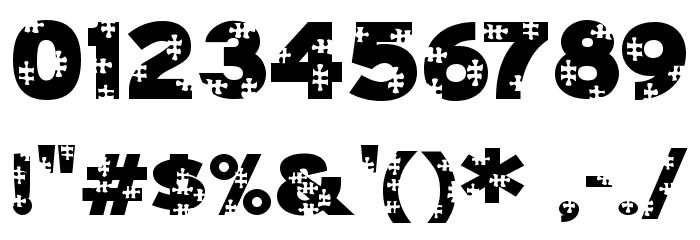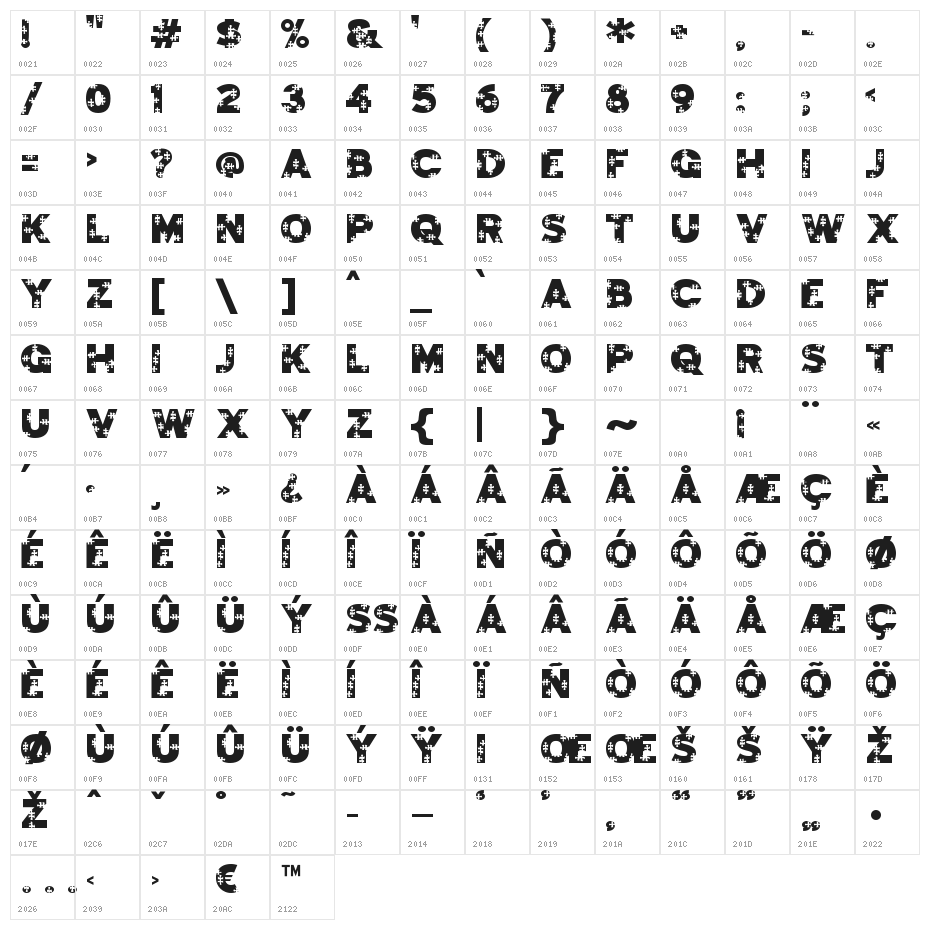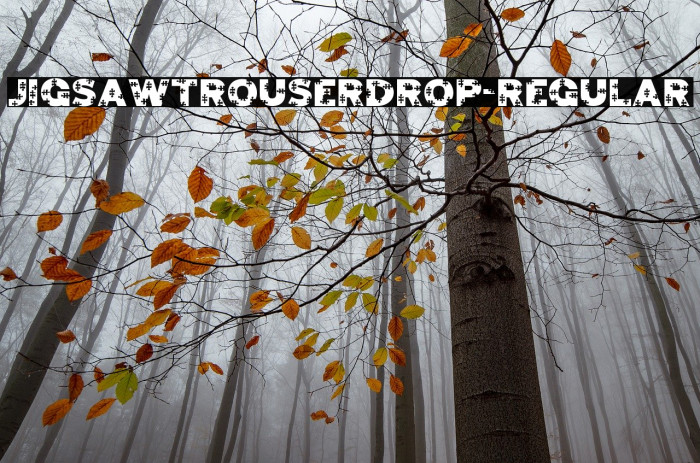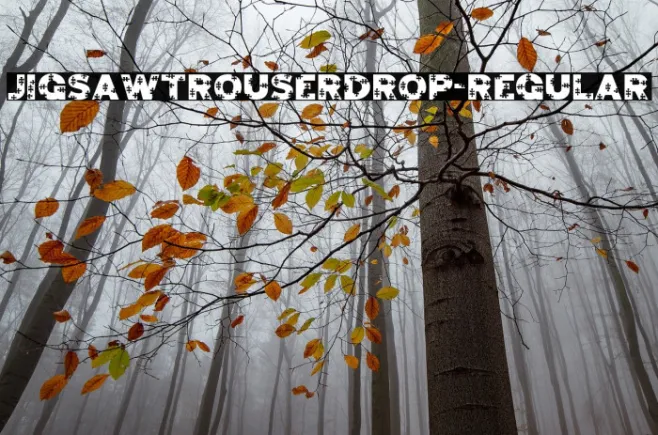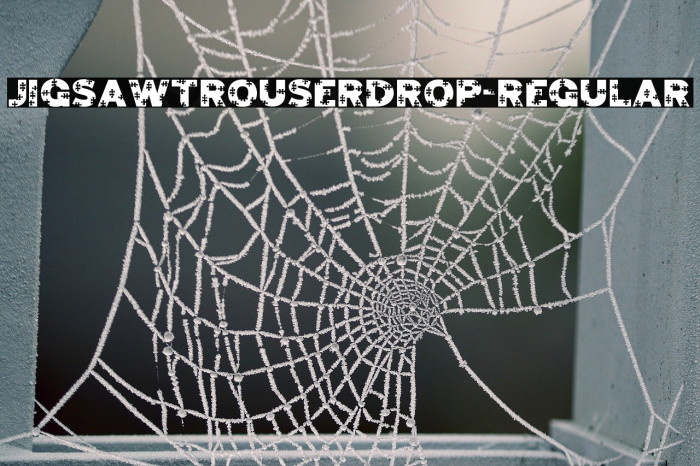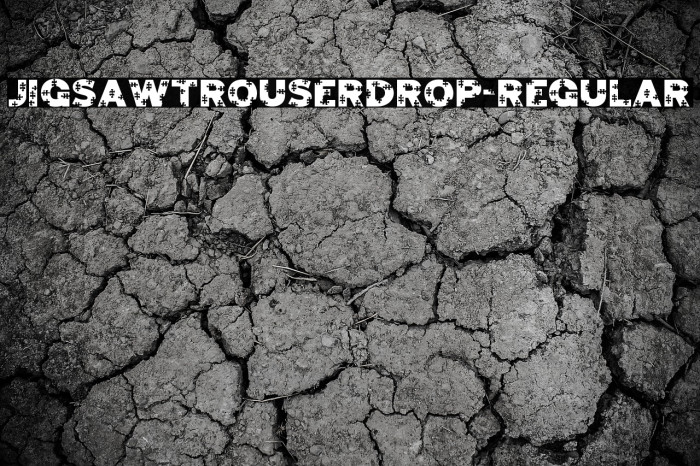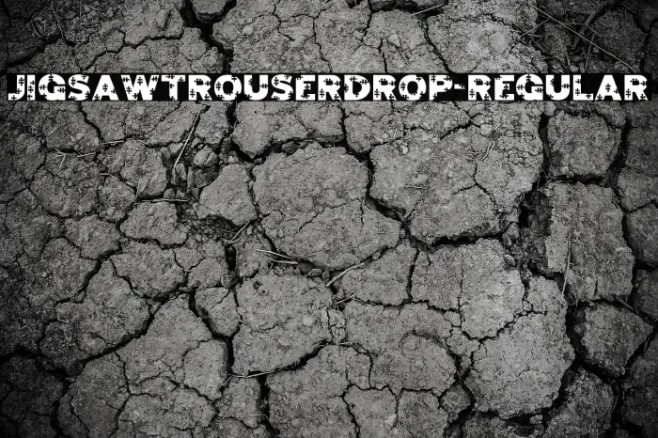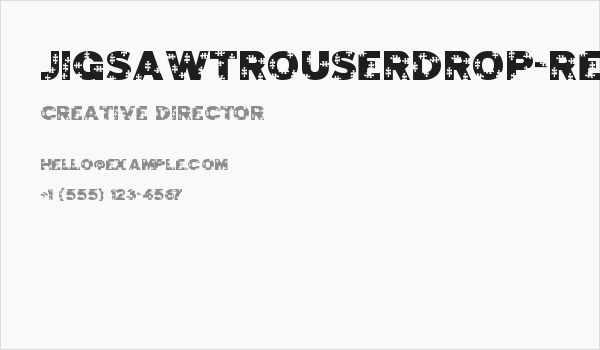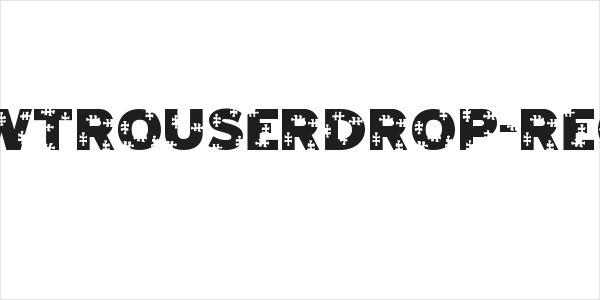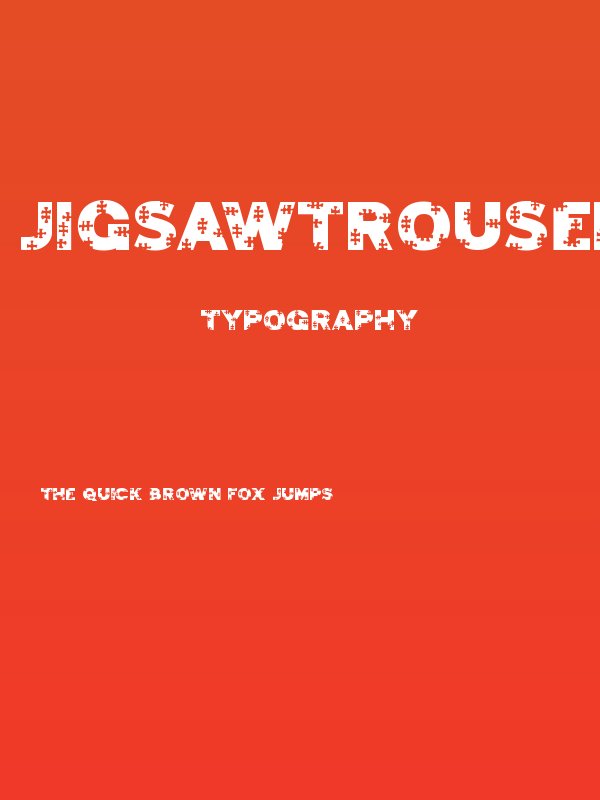
JigsawTrouserdrop-Regular Font
JigsawTrouserdrop-Regular Description
This font features a unique and playful design, incorporating jigsaw puzzle piece motifs within each character. The bold and chunky letterforms are filled with puzzle piece cutouts, creating a visually engaging and dynamic appearance. The font maintains a consistent weight throughout, with a strong emphasis on geometric shapes and clean lines. The character spacing is normal, allowing for easy readability despite the intricate design elements. This font is ideal for projects that require a fun and creative touch, such as children's books, puzzles, games, or playful branding. Its decorative style makes it stand out, capturing attention with its distinctive and imaginative aesthetic.
| Proposed Projects | Ideal for children's books, puzzles, games, playful branding, and creative posters. |